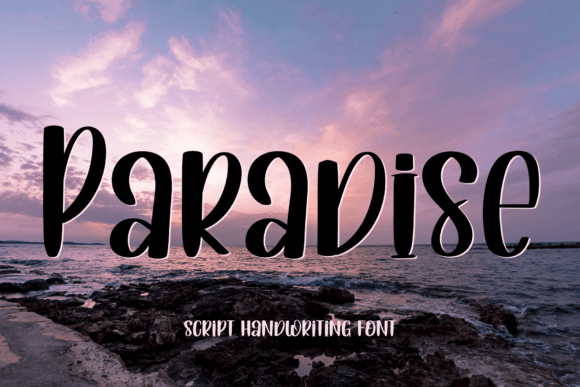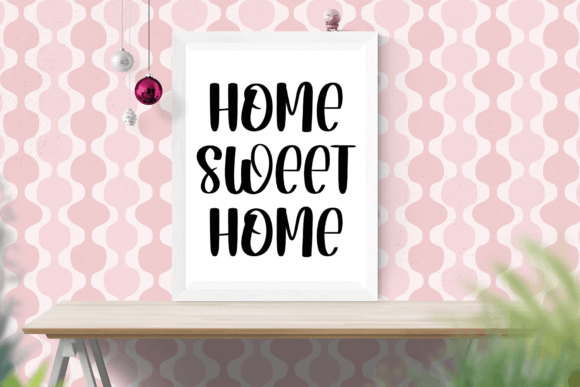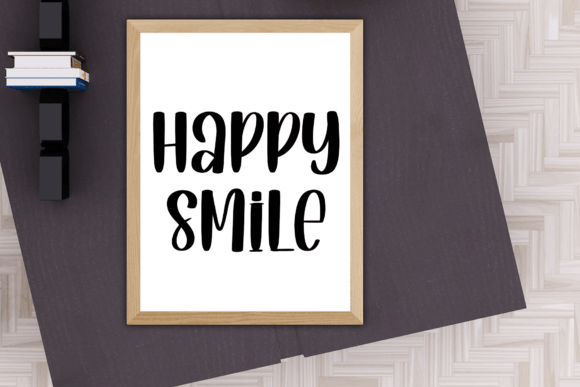
About Paradise Font
“Paradise” is not just a font; it’s a neat and beautiful handwritten script characterized by an elegant touch, making it a perfect choice for your favorite projects. This font invites you to fall in love with its incredibly distinct and timeless style, offering a versatile tool to create spectacular designs that stand out with sophistication and charm.
The neatness of “Paradise” contributes to its versatility, making it suitable for a wide range of projects. Whether you’re working on invitations, branding, social media graphics, or any other creative endeavor, this font’s elegant touch adds a level of refinement that enhances the overall aesthetic.
The handwritten nature of “Paradise” imparts a personal and authentic feel to your designs, creating a connection with your audience. Its timeless style ensures that your projects remain relevant and visually appealing across different contexts.
Whether you’re aiming for a classic and elegant look or a more modern and stylish feel, “Paradise” adapts seamlessly. Its distinct characters make it a standout choice for expressing creativity in a way that is both sophisticated and approachable.
In summary, “Paradise” is a font that combines neatness, beauty, and an elegant touch. Let it be the tool that elevates your designs, turning them into spectacular creations that capture attention and leave a lasting impression. Whether you’re a professional designer or an enthusiast, “Paradise” offers a timeless and distinct style for your creative endeavors.